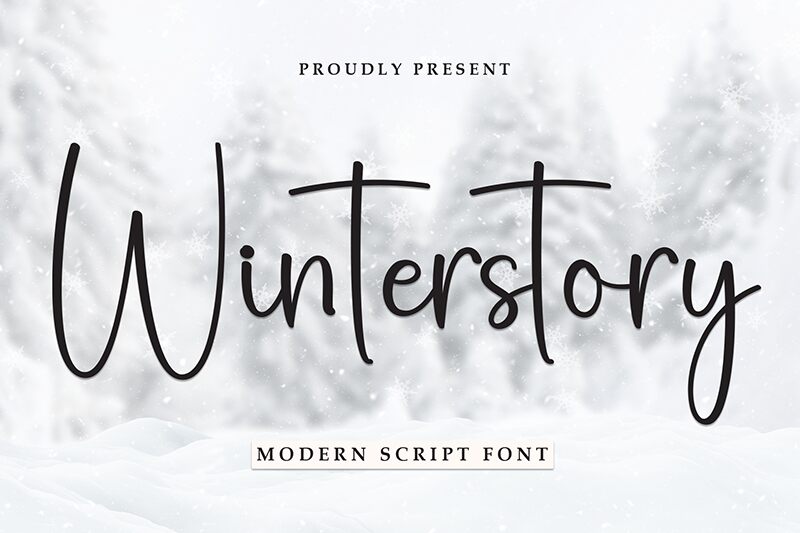
Winterstory
Winterstory font by Scratchones is a light handwritten font with casual elegance. An italic and laid-back approach is given to letter design, resulting in a modern script typeface full of approachable flair. Its friendly and sophisticated appeal makes the font hard to resist when it comes to selection for your next project.
Since Winterstory is a free handwritten font, you can enjoy using it on a variety of platforms artistically and professionally. Whether desiging fashion or beauty packaging, branding needs, products labels or invitations, this typeface will surely add that extra touch. For print projects, consider stationery designs such as business carde and more!